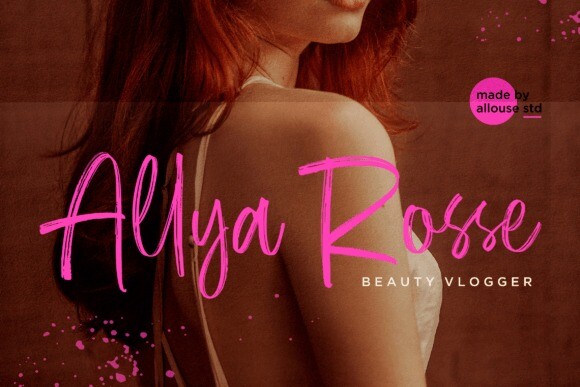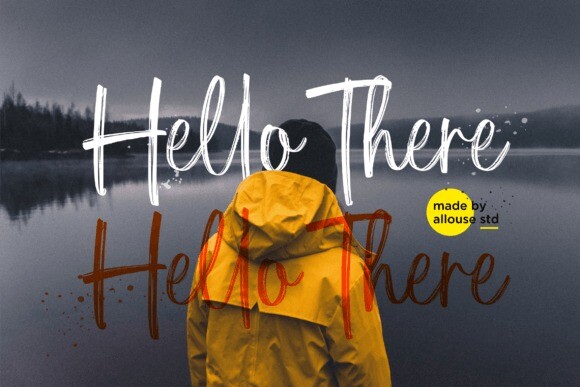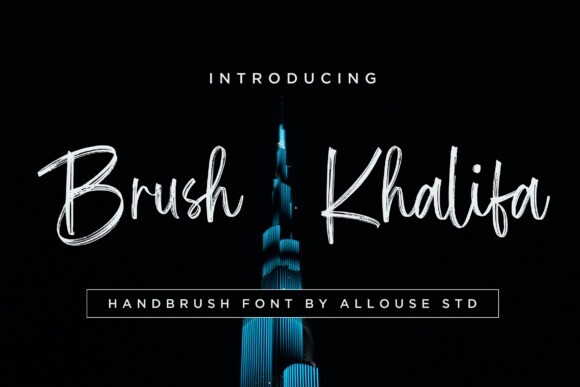
Brush Khalifa Font
Brush Khalifa Font is a modern, trendy brush script font. No matter the topic, this font will be an incredible asset to your fonts’ library, as it has the potential to elevate any creation.